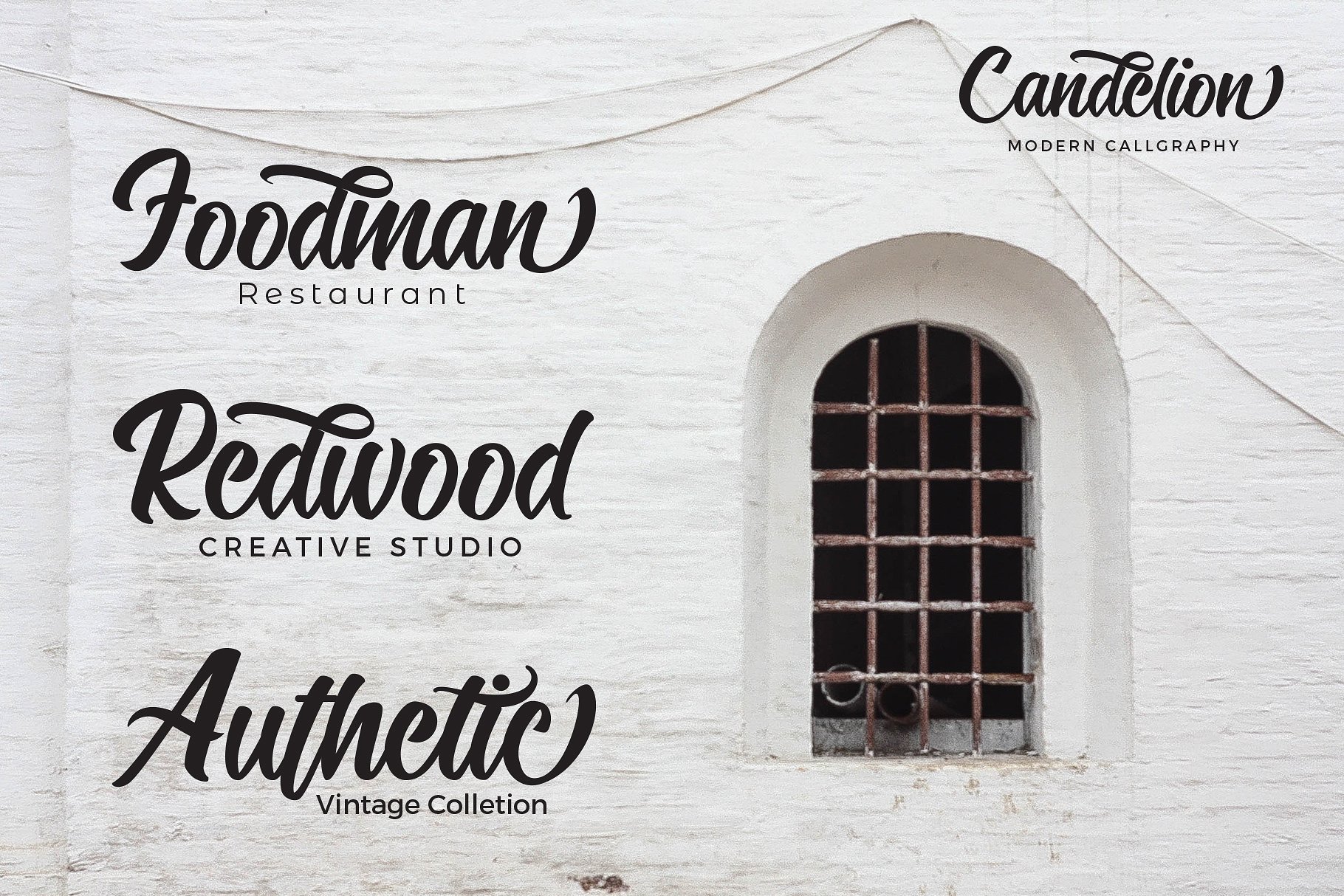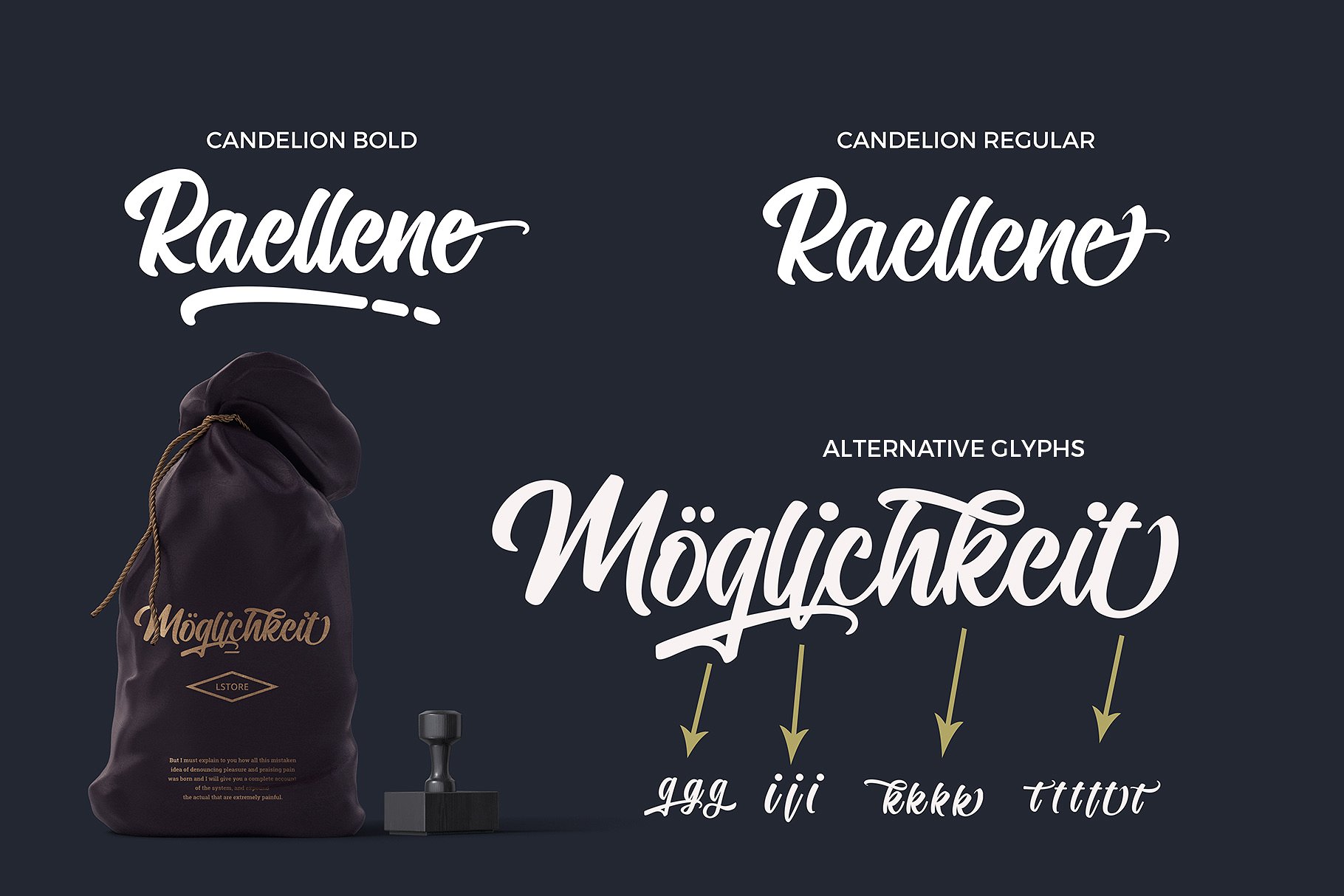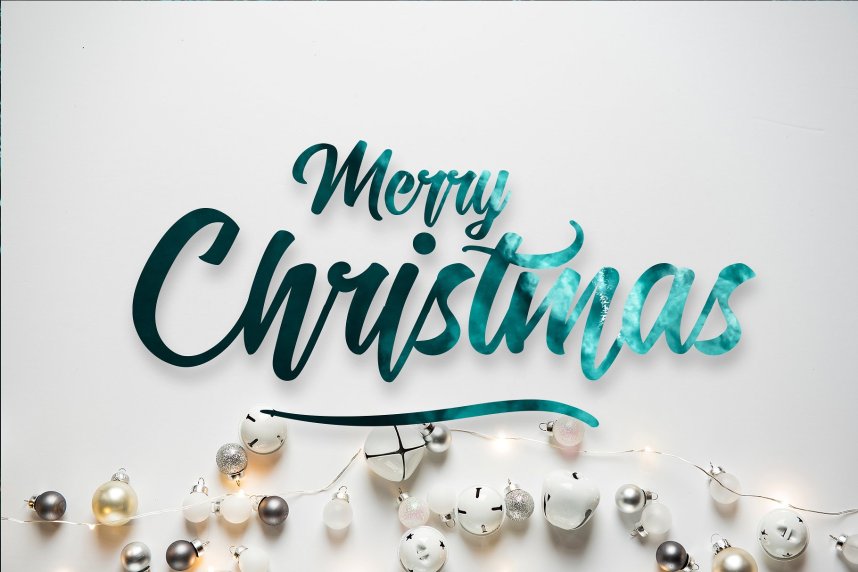
Candelion Script Font
Introducing Candelion. It is designed by Tanziladd, this is a premium font, are sold on creativemarket, but it was great, it is free today for download. Candelion – a bold script font that inspired by hand lettering stylistic with modern calligraphy. Canledion has pretty much alternatives glyphs choice in the pack. Beside those alternatives, the pack also includes three different stylistic alternatives which are rough, clean and bold.
Candelion font really perfect for creative project such as logo, T-shirt / apparel, badge, invitation, packaging,headline, poster, magazine, greeting card, and wedding invitation.